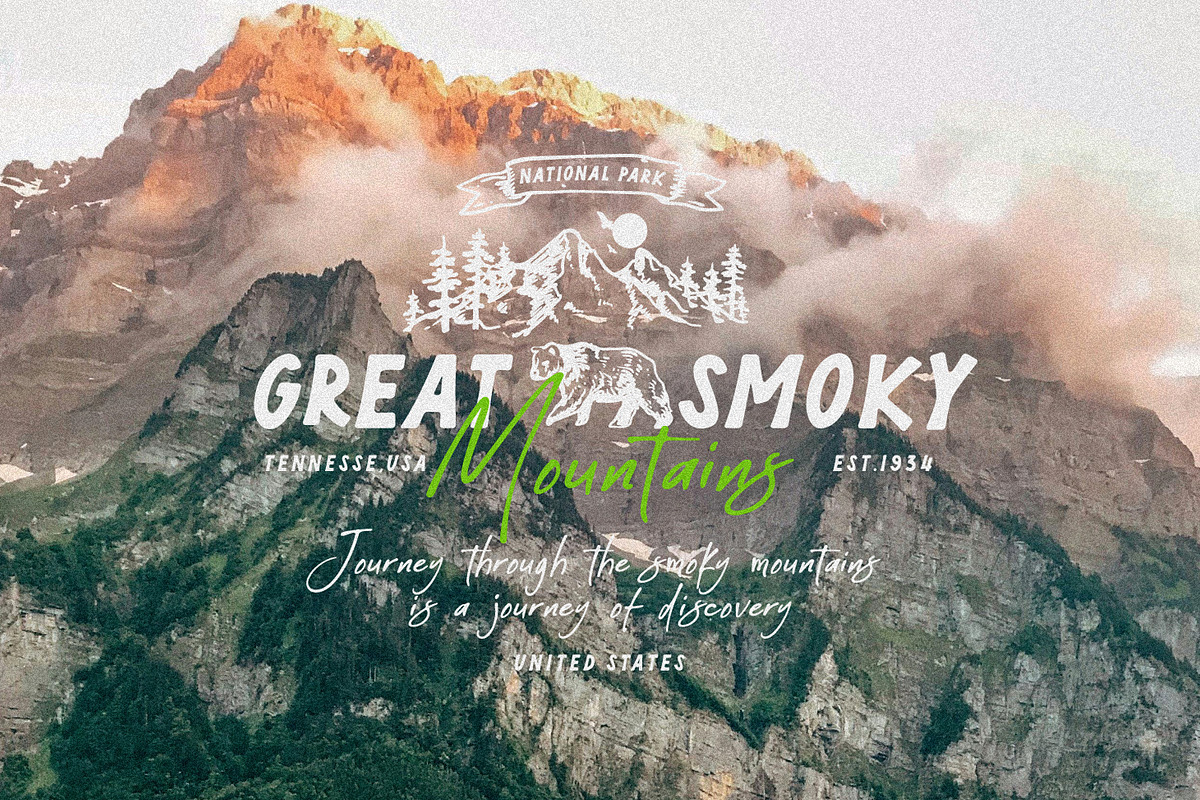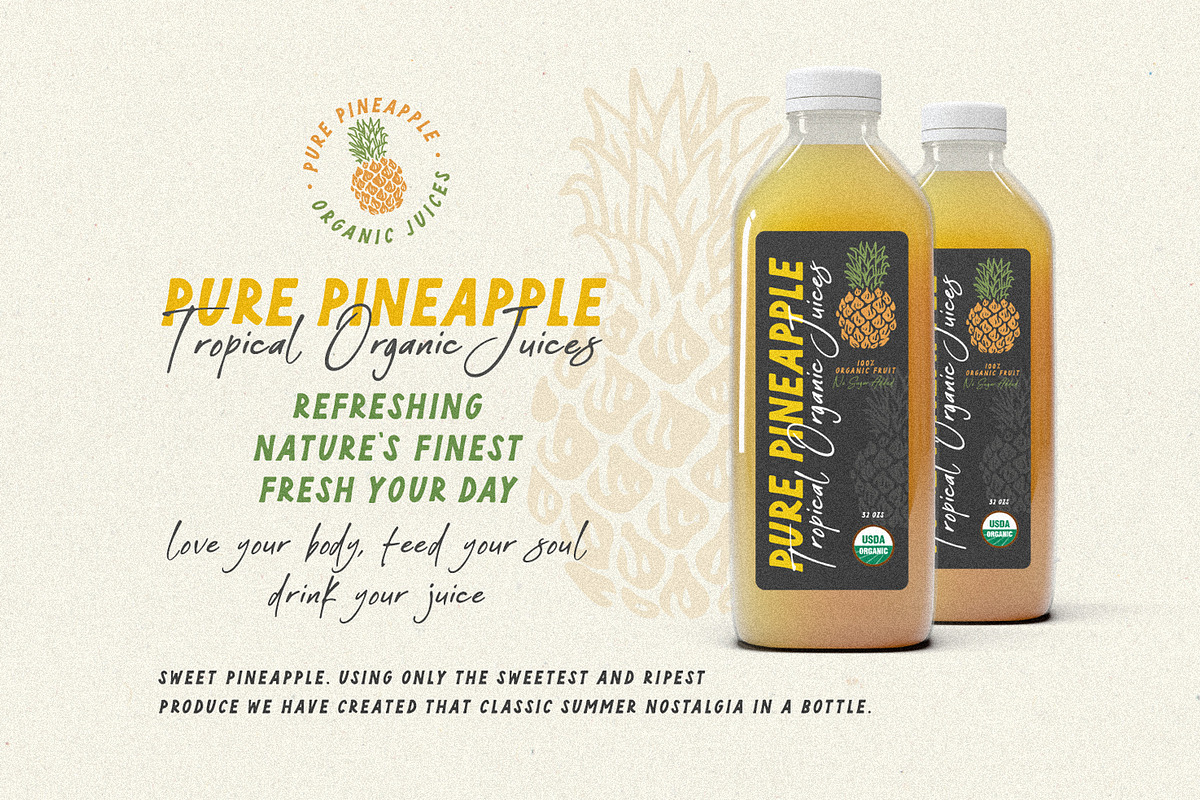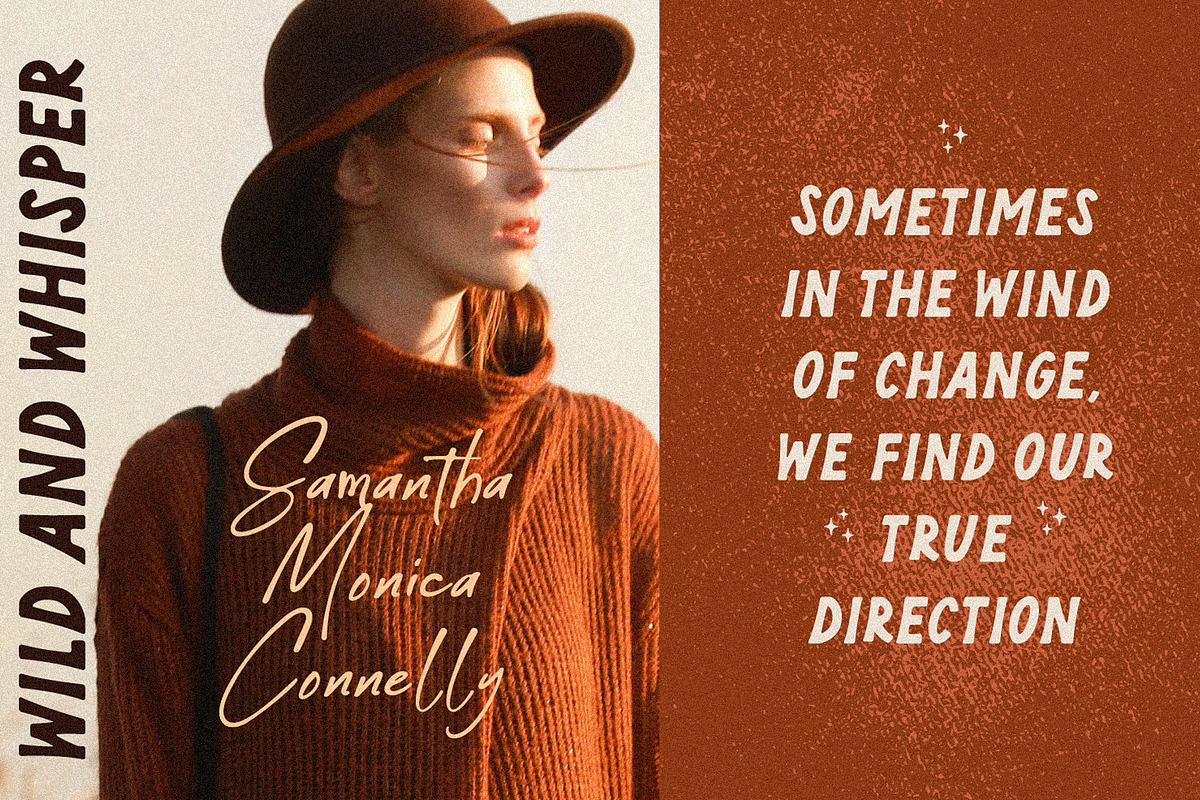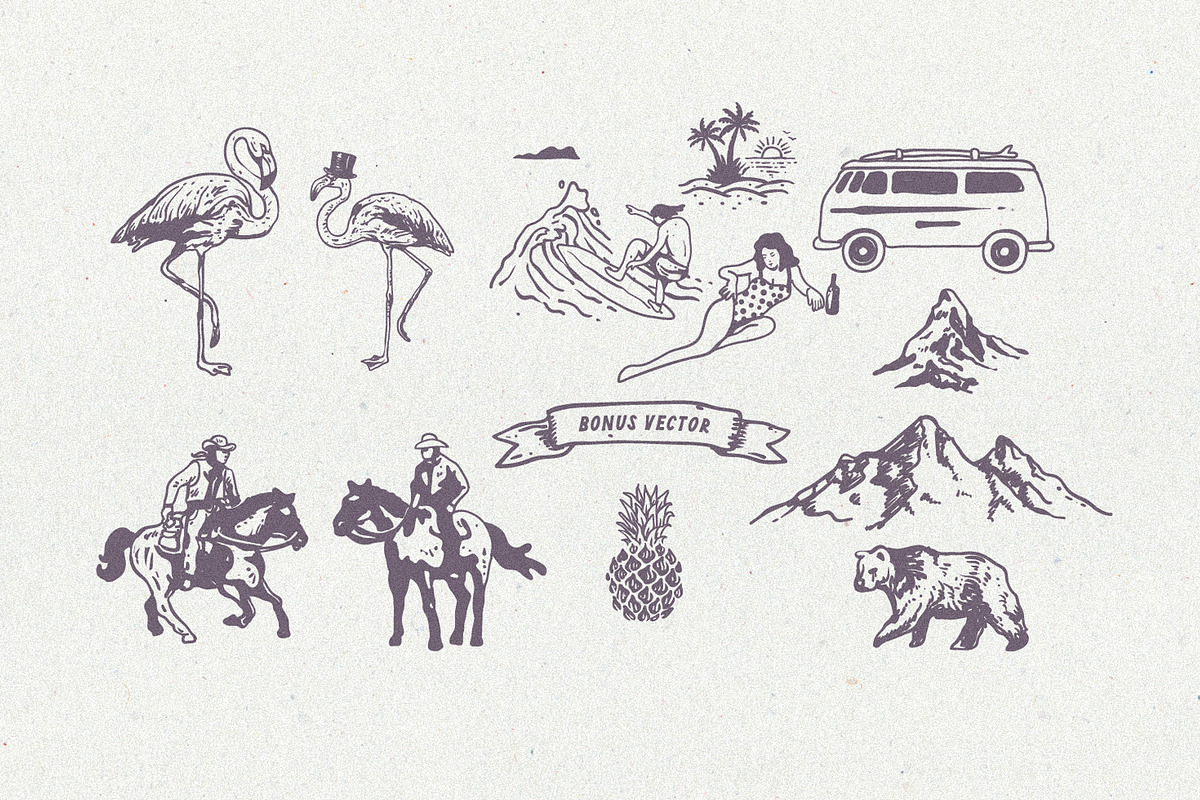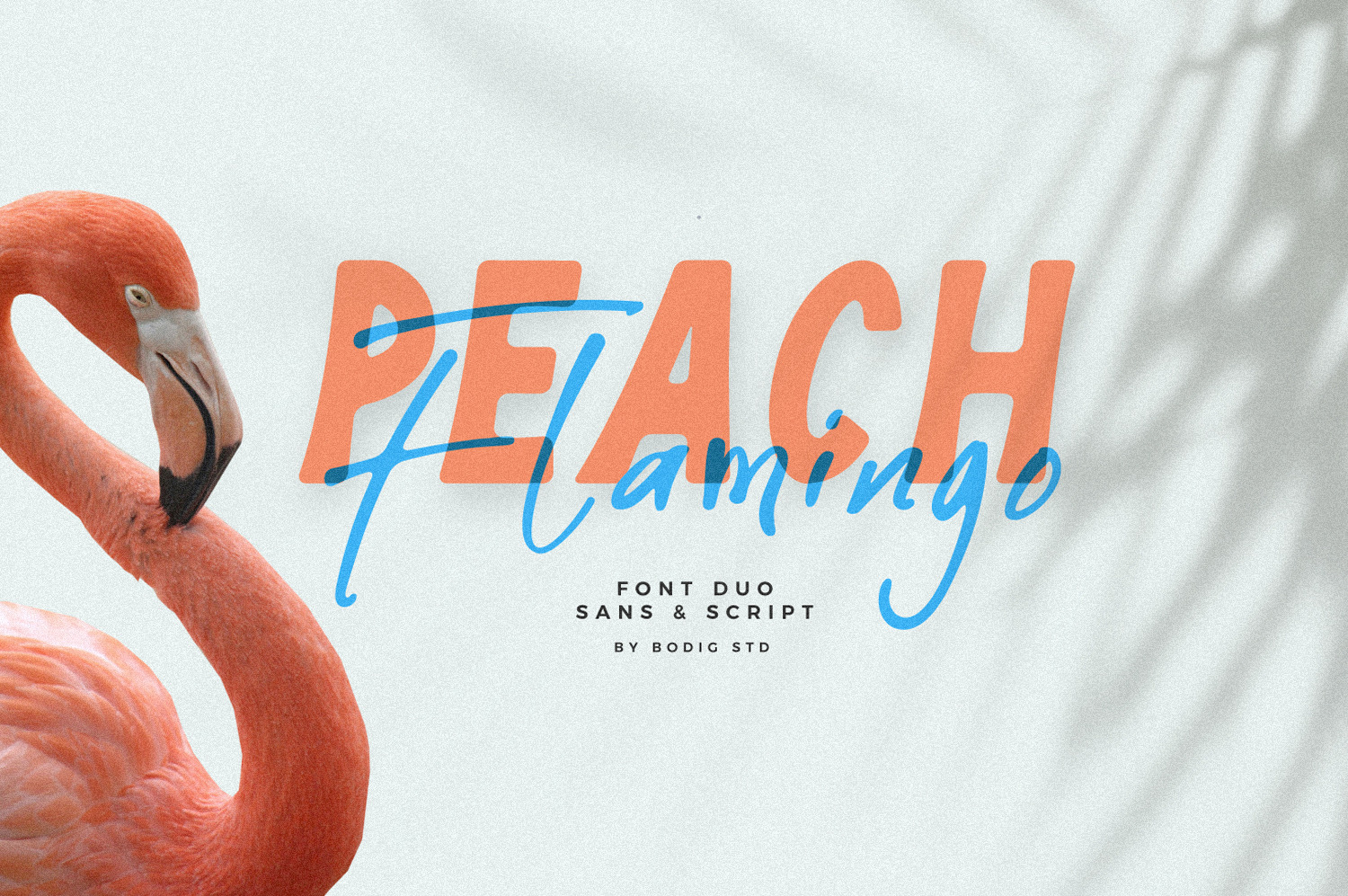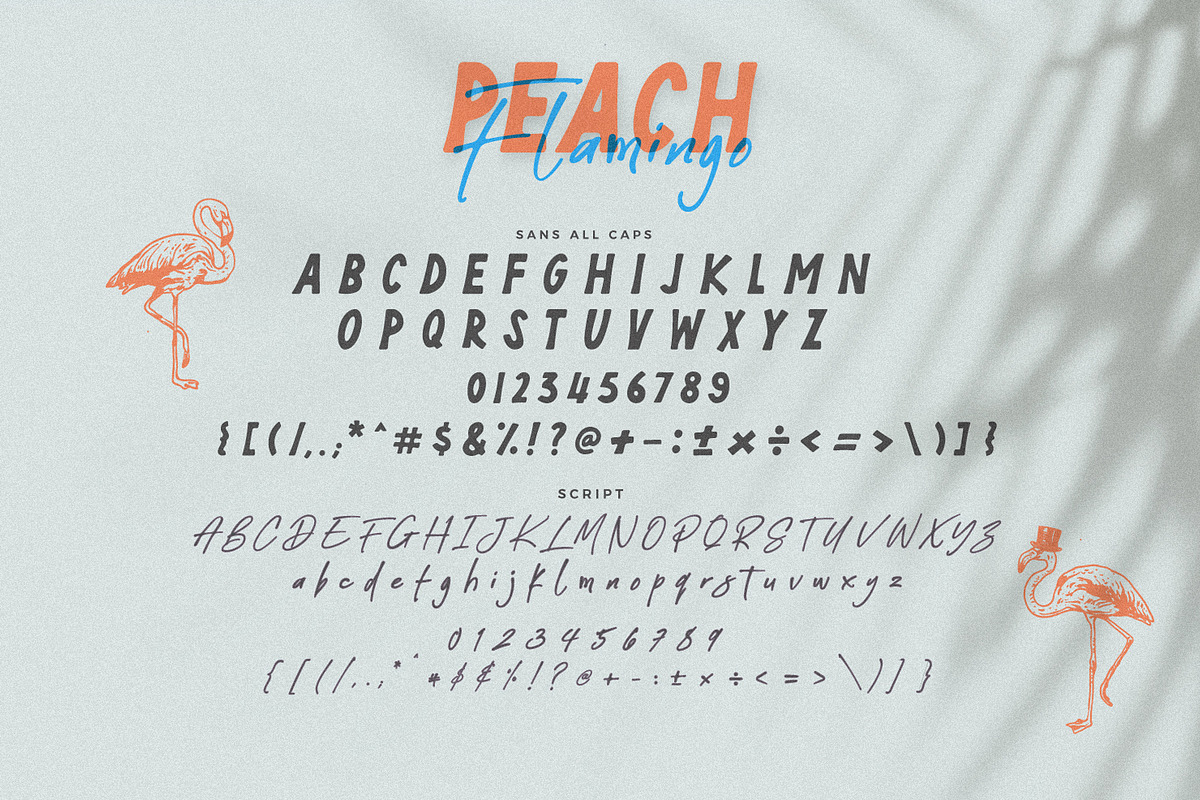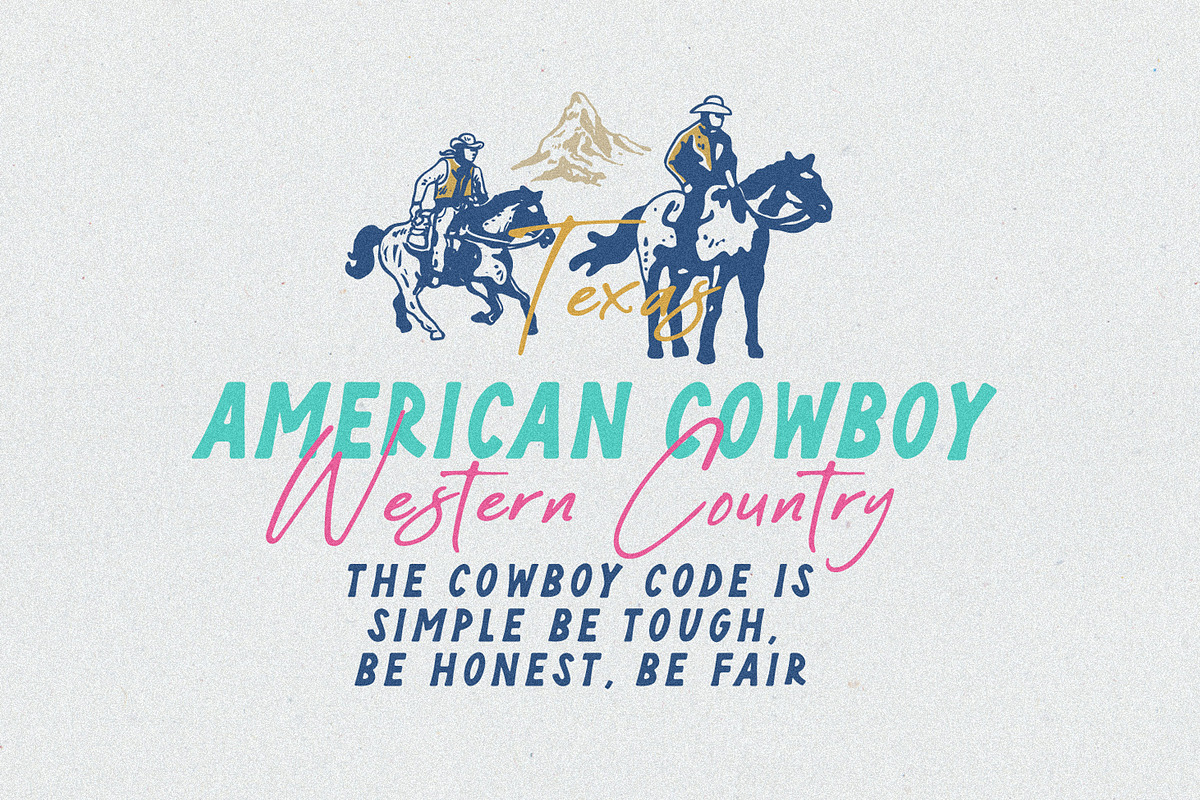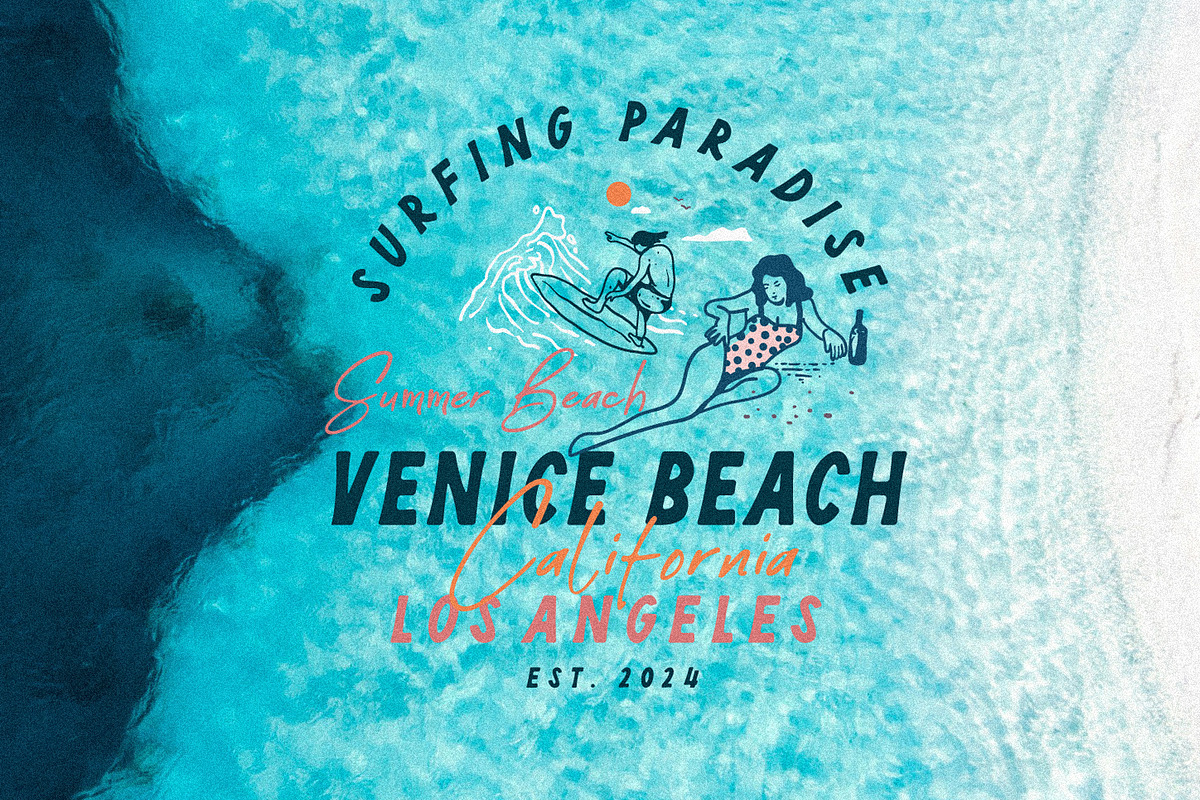
Peach Flamingo Font Duo
Peach Flamingo is two handwritten all caps and script typeface. a Strong inner battle between these two fonts, this sans font comes with a sweet dingbat – whereas the script font is organic wild handwritten. *There are additional vector bonuses to support jazz up your designs!